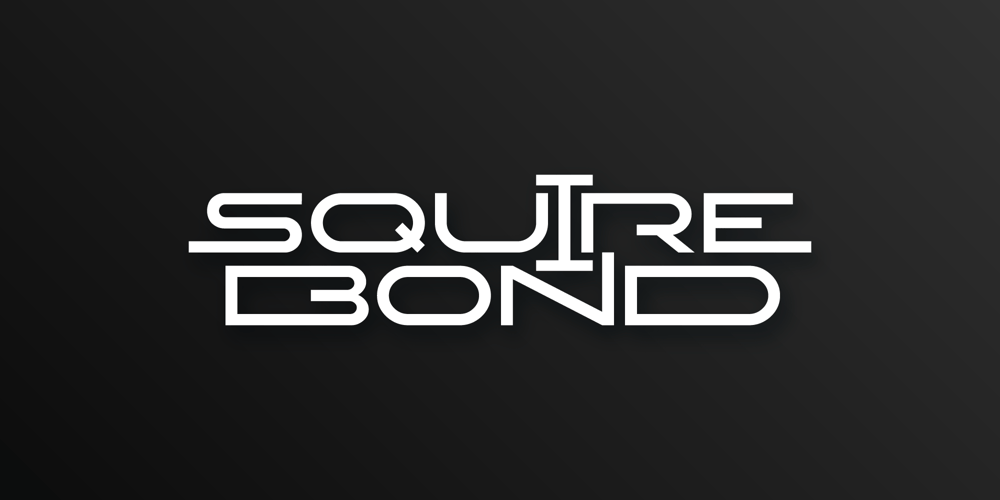
Squire Bond Font Family was designed by Kamarudheen Abdurahiman CK and published by Kamandrus. Squire Bond contains 2 styles and family package options. Squire Bond is a line-based Title font, it helps to create stunning clean minimalistic logos and headlines.Classic & Decorative Typography Designs are easy to create using the Squire Bond font Family.The pack includes:* Regular Font* Thin Font* Only Upper-case glyphs* Numbers included* All Special characters included